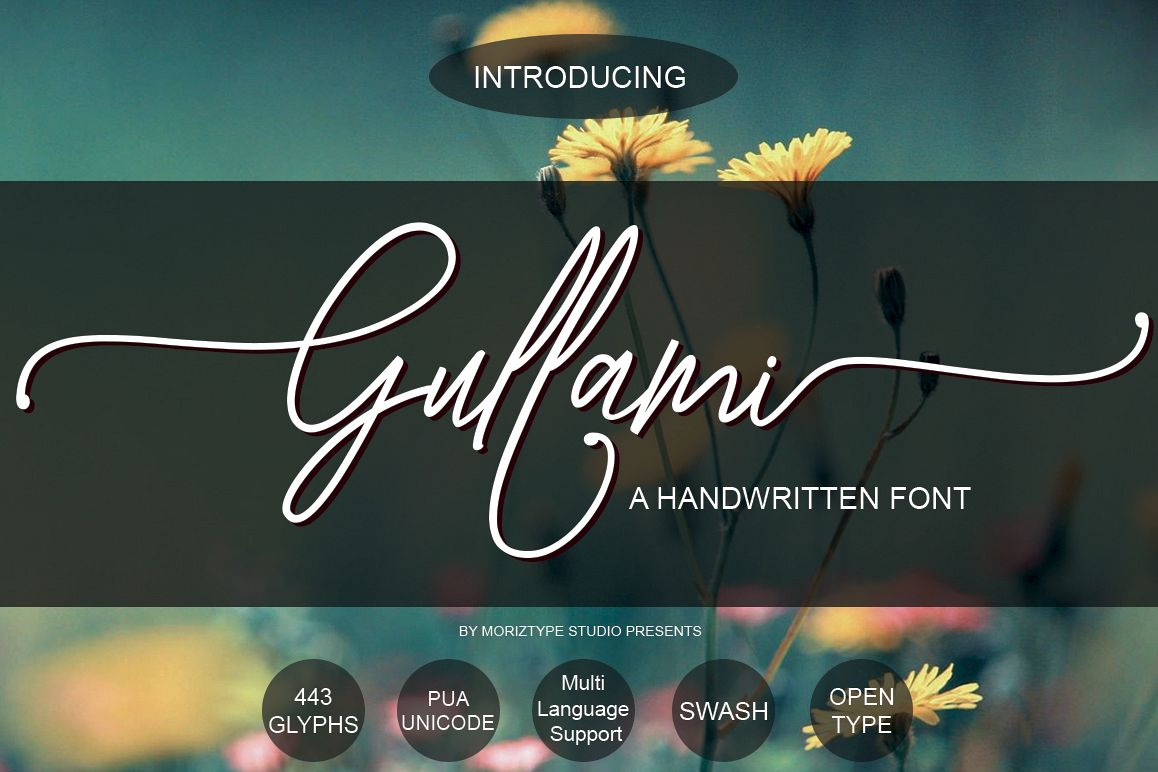
Gullami Rice Script
Gullami Rice
Gullami Rice Script is the original handwriting
typeface, which was so fresh and natural. Perfect for the next design,
such as logo, signature, printed quotation marks, citations handwriting,
invitations, cards, packaging products, goods, and greeting cards,
magazine titles, headers and anything else about your imagination.
Gullami Rice Script come with 443 glyphs. The
alternative characters were divided into several Open Type features such
as Swash, Stylistic Sets, Stylistic Alternates, and Ligature. The Open
coded fonts). so that all the alternate characters can easily be
accessed in full by a craftsman or designer.
• Standard ligatures
• Stylistic sets 1-6
• Basic Latin A-Z and a-z
• International Symbols Support
• PUA Unicode